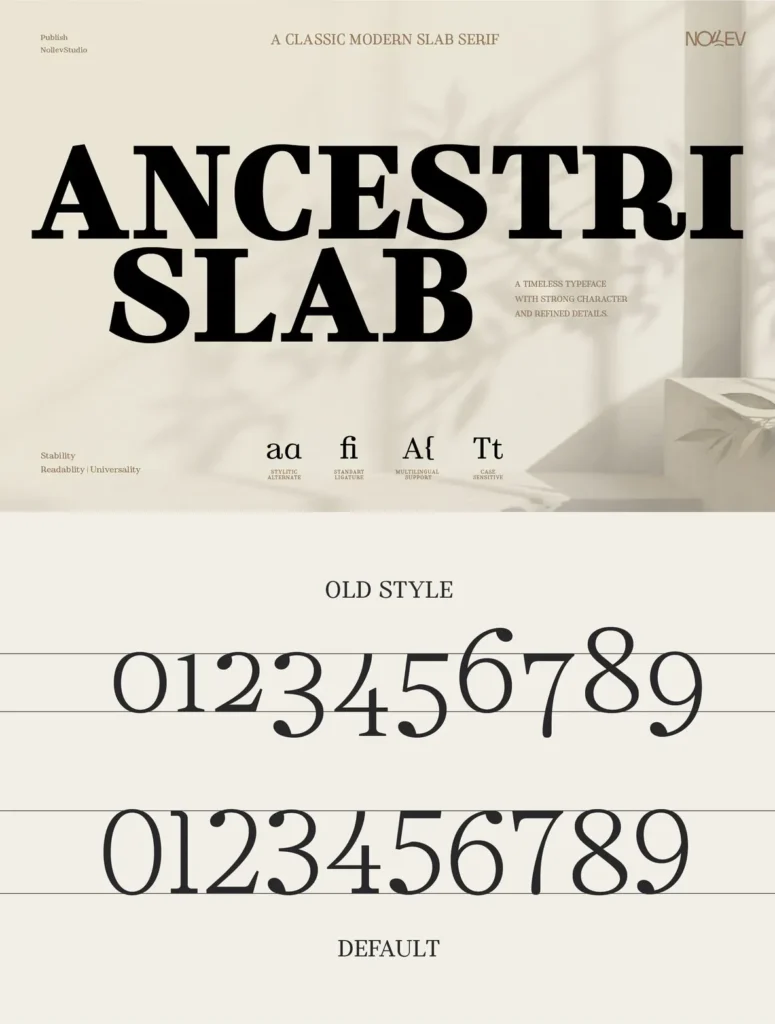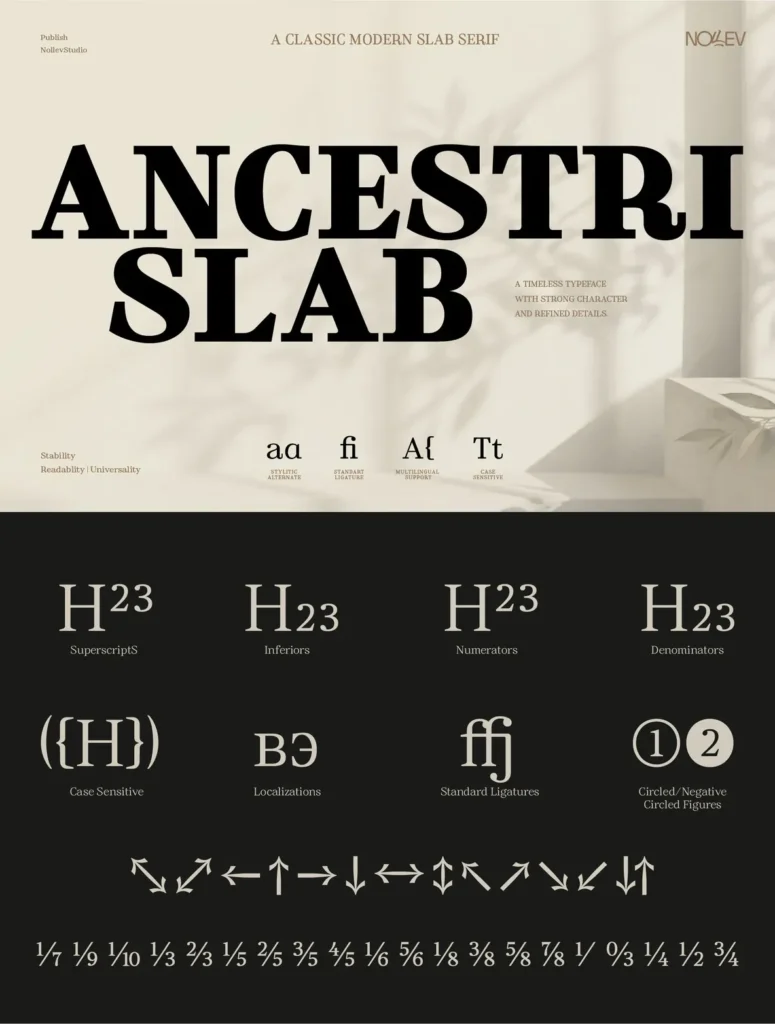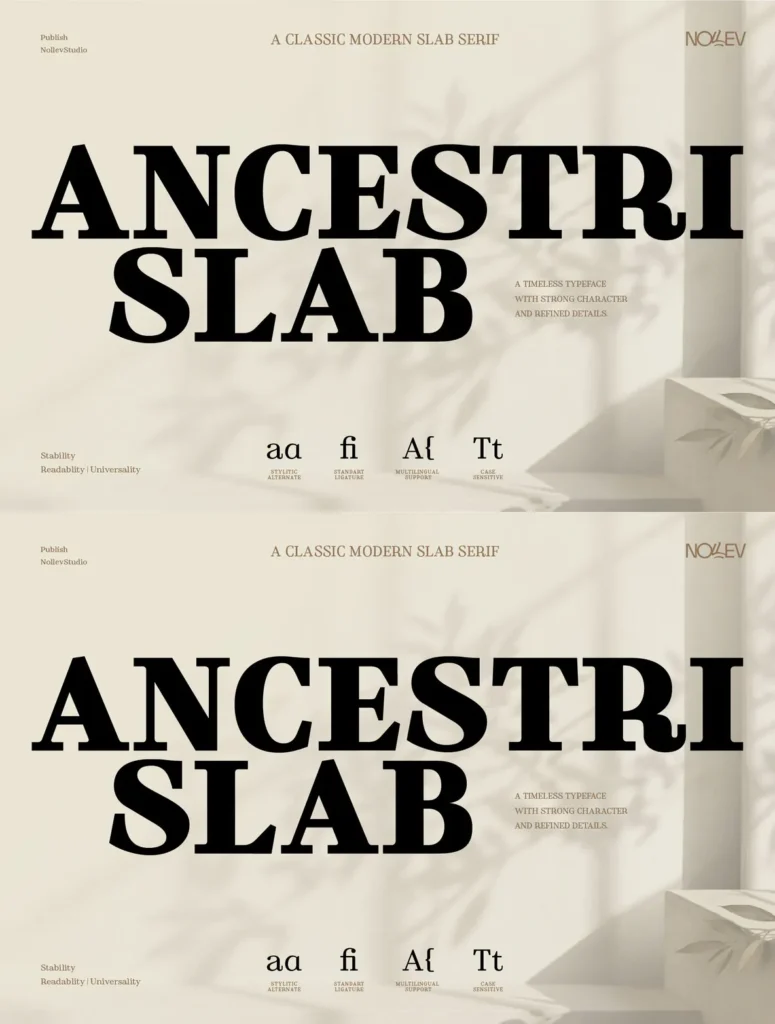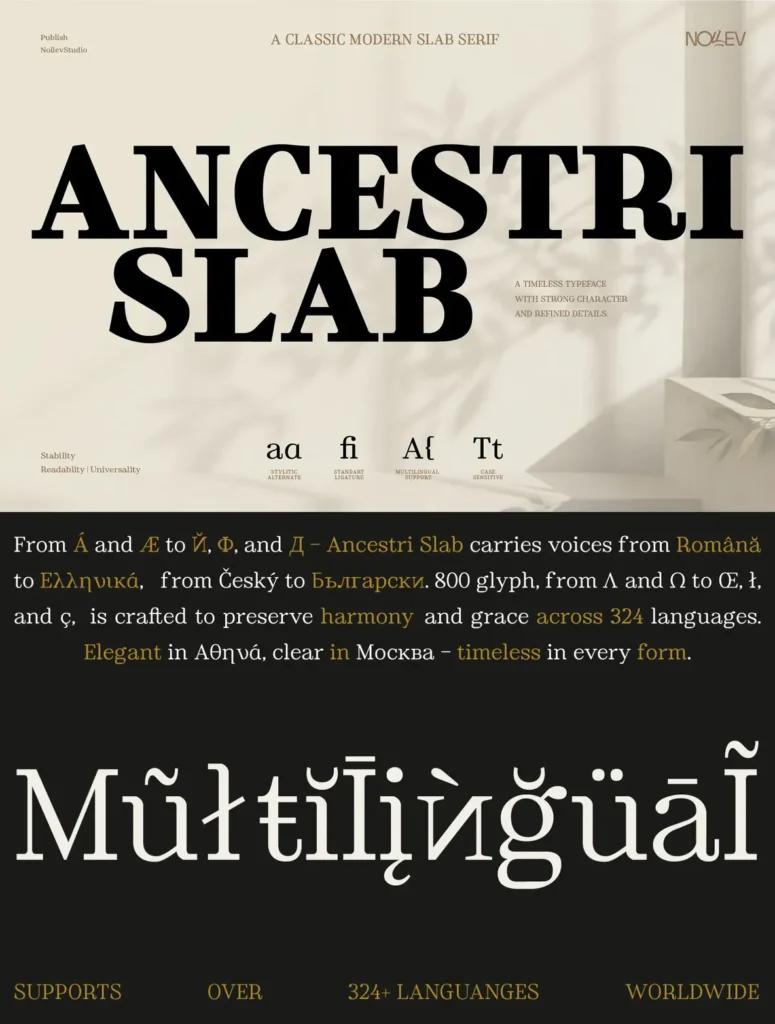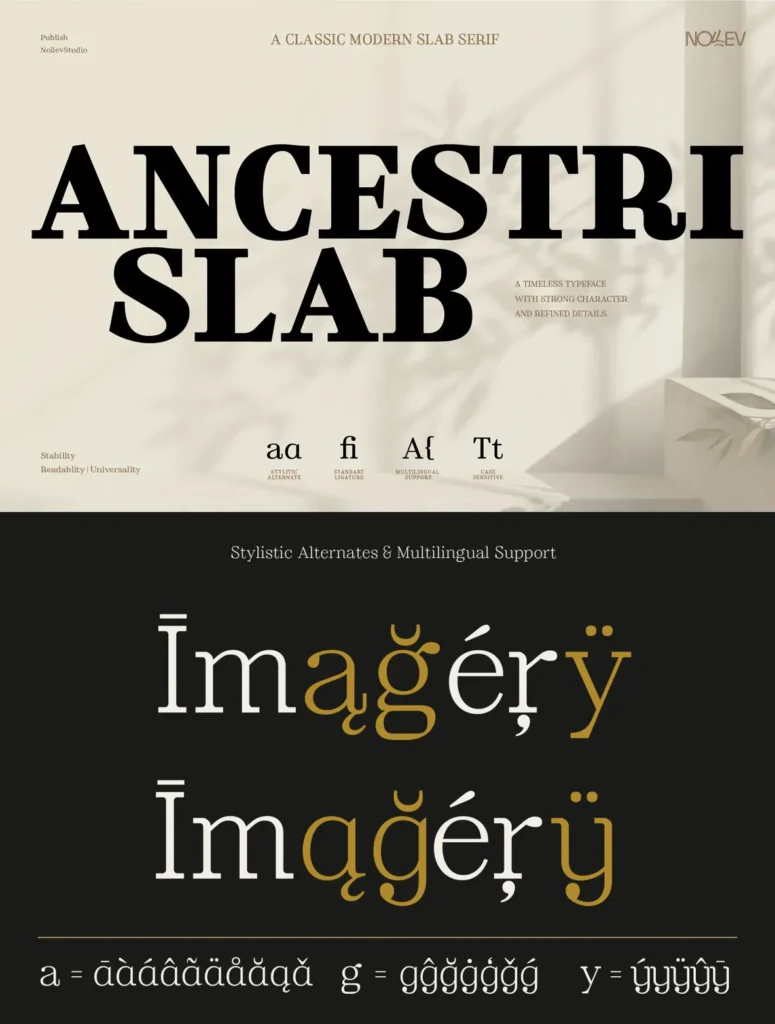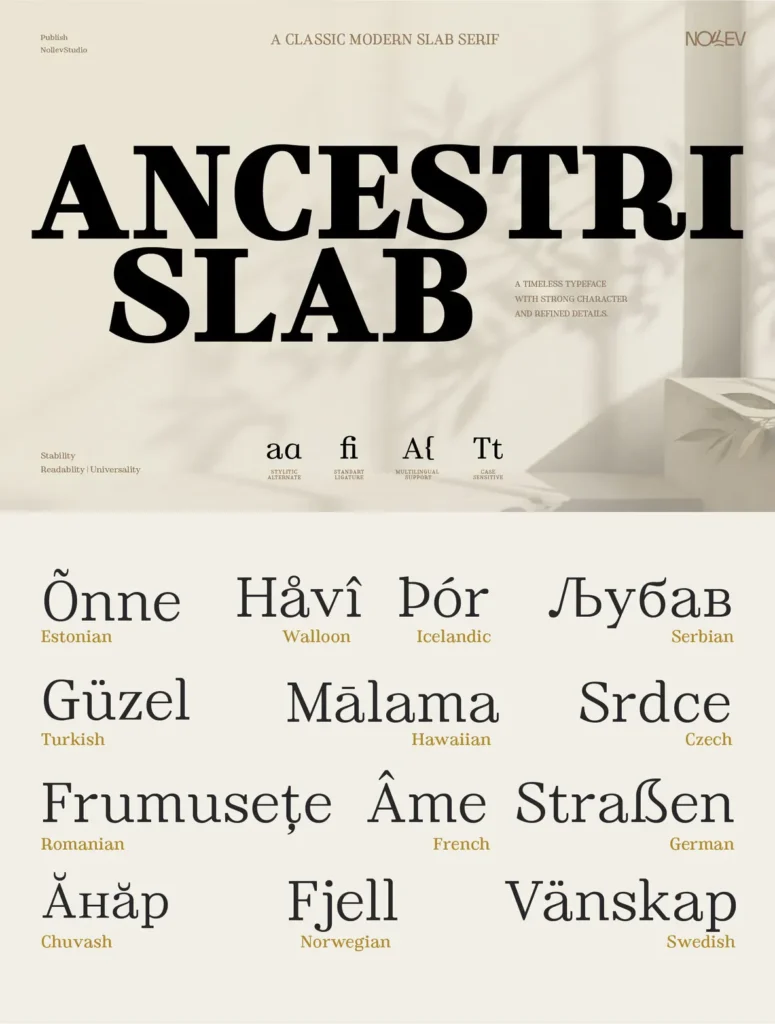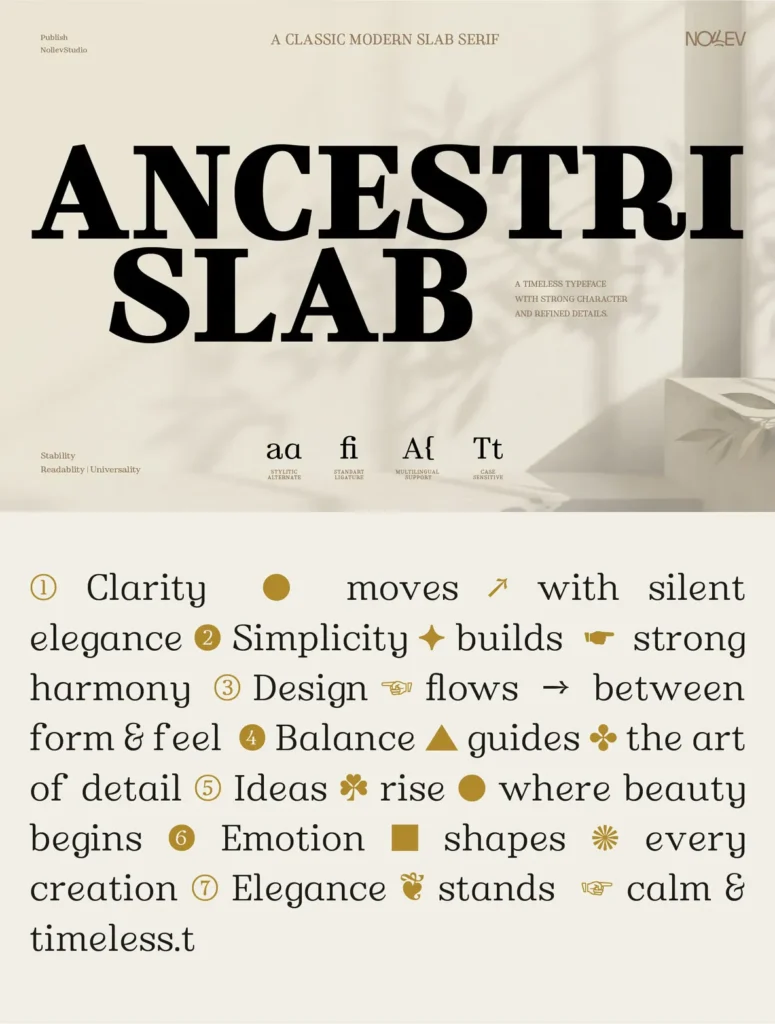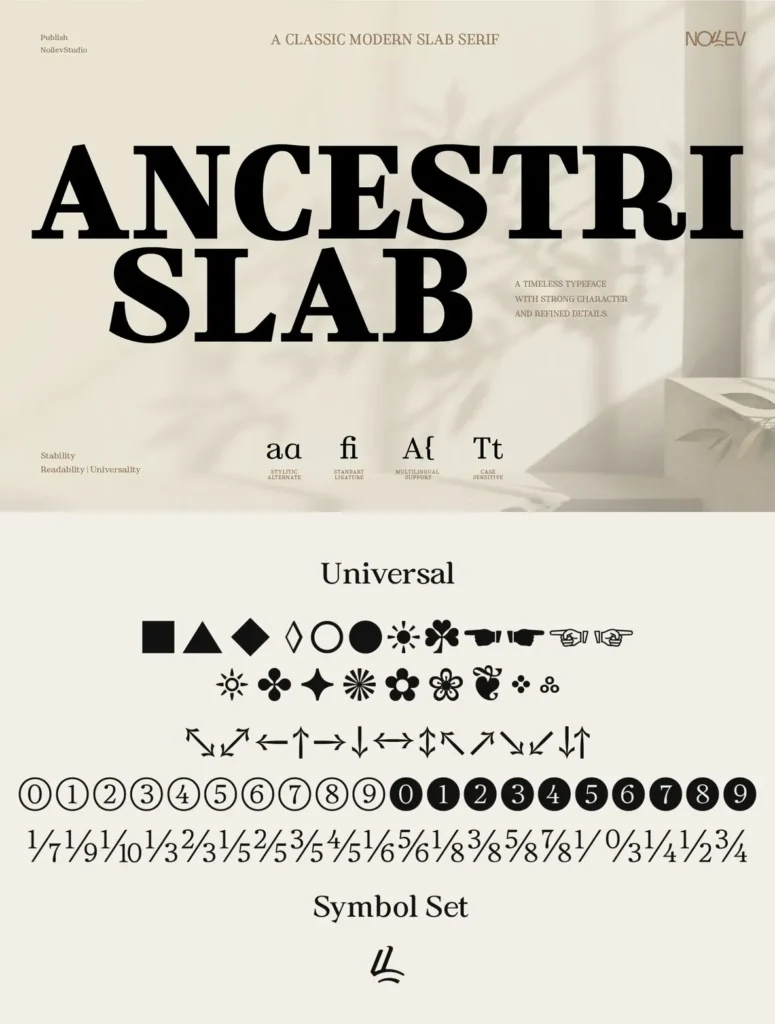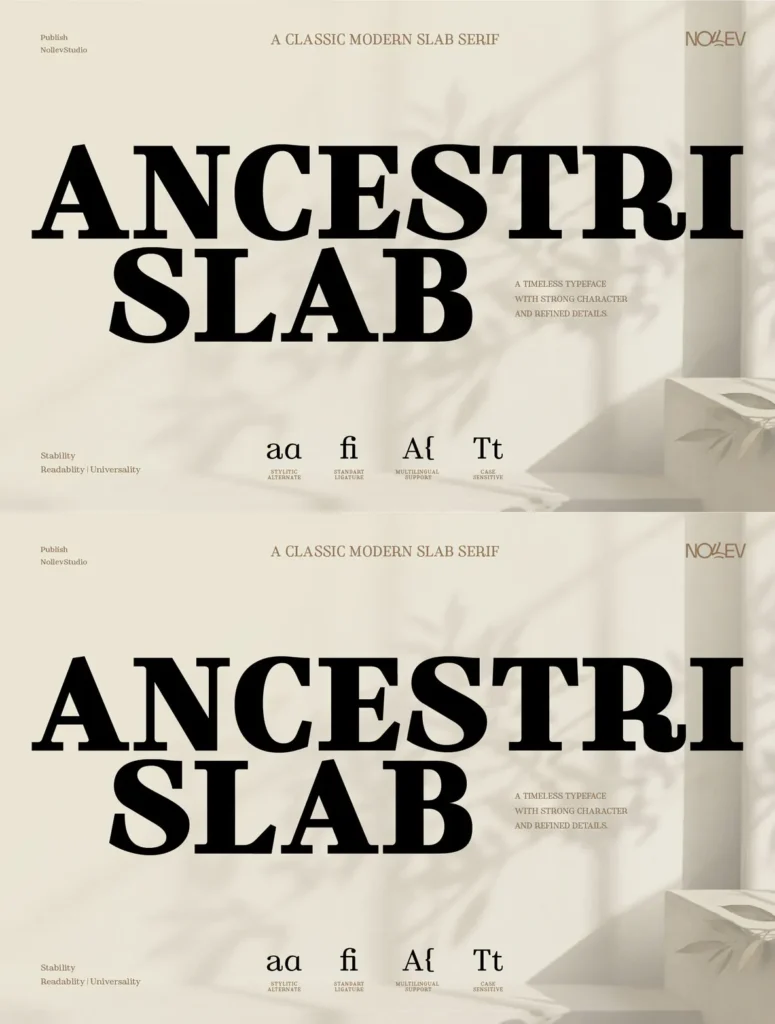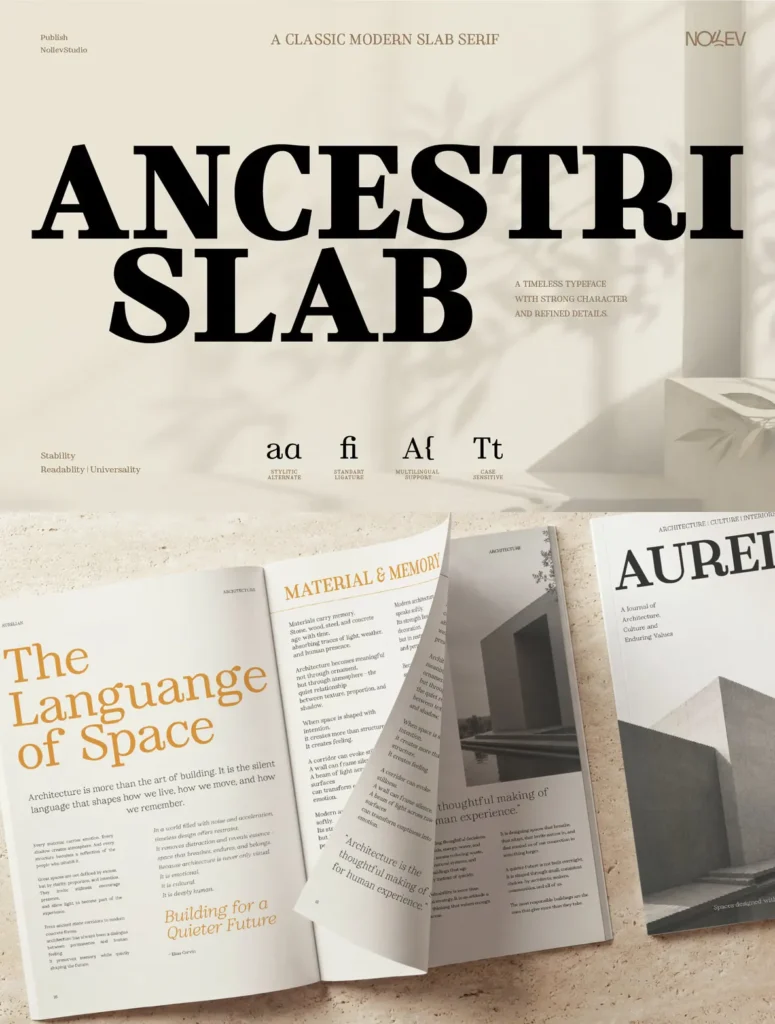
Ancestri Slab — Structure with Grace
Ancestri Slab is a classic modern slab serif typeface with a strong structure, refined details, and timeless character. Inspired by architectural forms and contemporary editorial aesthetics, it combines a bold presence with elegant readability for luxury branding, editorial layouts, publishing, packaging, posters, and sophisticated visual identities.
The family includes 18 carefully designed styles with advanced OpenType features such as ligatures and stylistic alternates. These details give designers the range to build expressive, distinctive typographic compositions while keeping the typeface clear and composed.
With support for Latin Extended, Cyrillic, and Greek languages, and more than 801 glyphs, Ancestri Slab works as a versatile professional type system. It suits impactful headlines as well as refined layout design, bringing consistency and authority to demanding typography projects.